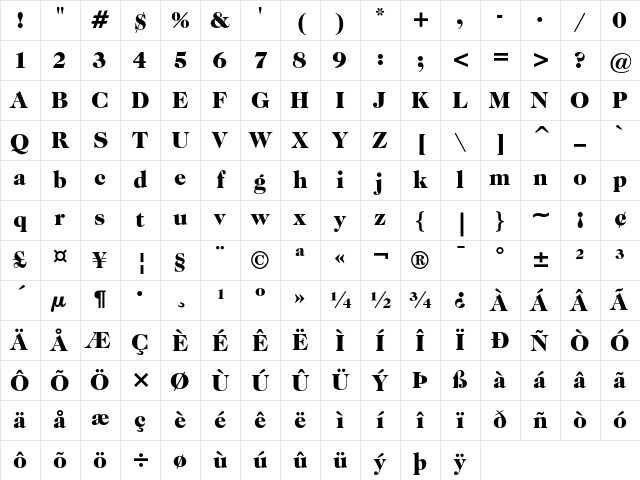
Complete ITC Caslon No.224 Black glyph index. Displaying only characters natively supported by ITC Caslon No.224 Black font.
ITC Caslon No.224 is a composed and adaptable typeface that performs quietly and consistently across a wide range of design contexts.